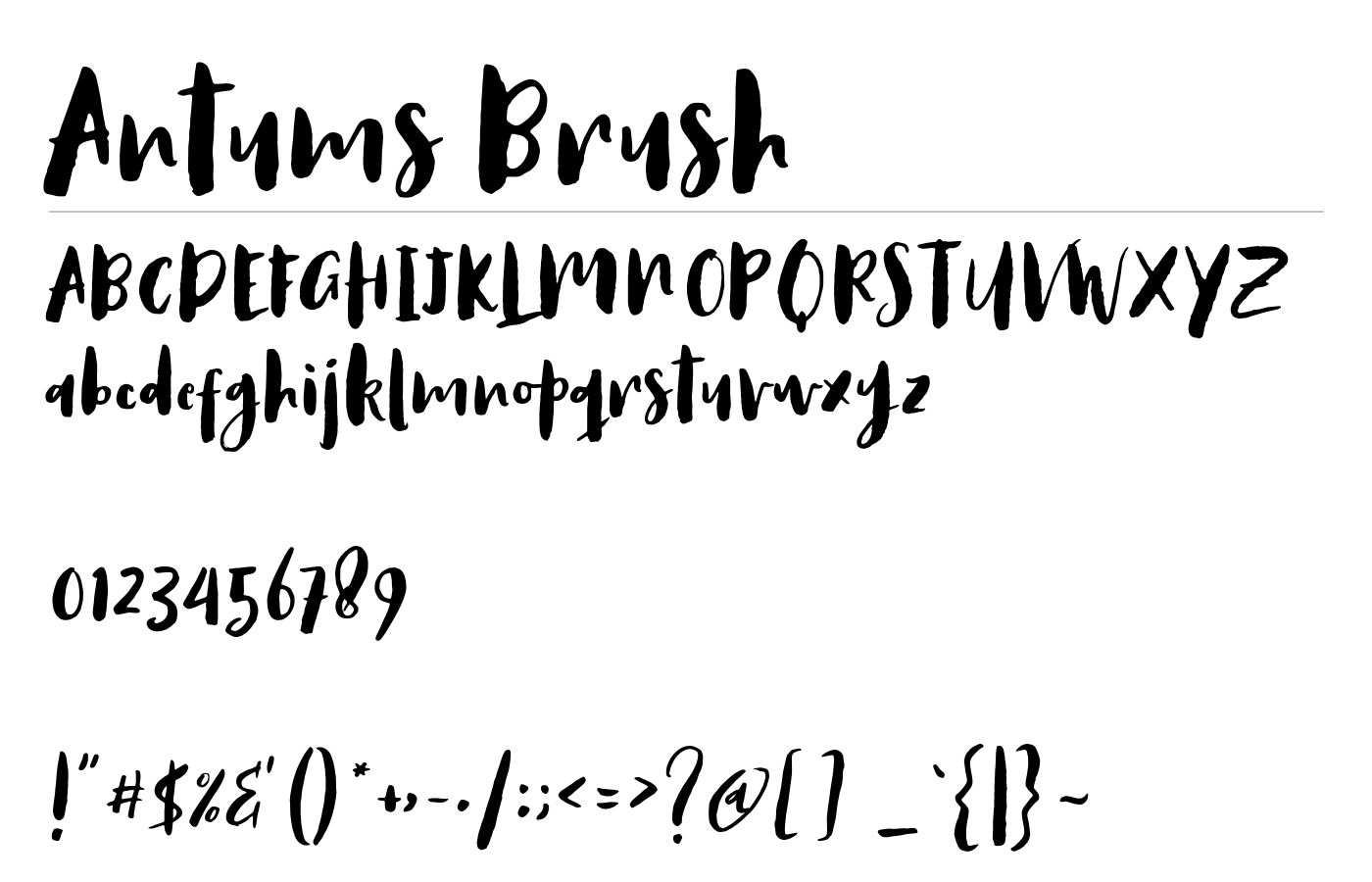
Antums Brush is a lively and expressive brush script font with a hand-painted feel, featuring bold, irregular strokes that give it a natural, artistic charm. Its tall, slightly condensed letterforms and varied stroke widths create a dynamic yet approachable style perfect for creative projects, casual branding, and eye-catching headlines. This font works beautifully for invitations, logos, posters, and any design seeking a playful, personal touch with a handcrafted vibe.
Antums Brush Font
About Antums Brush Font